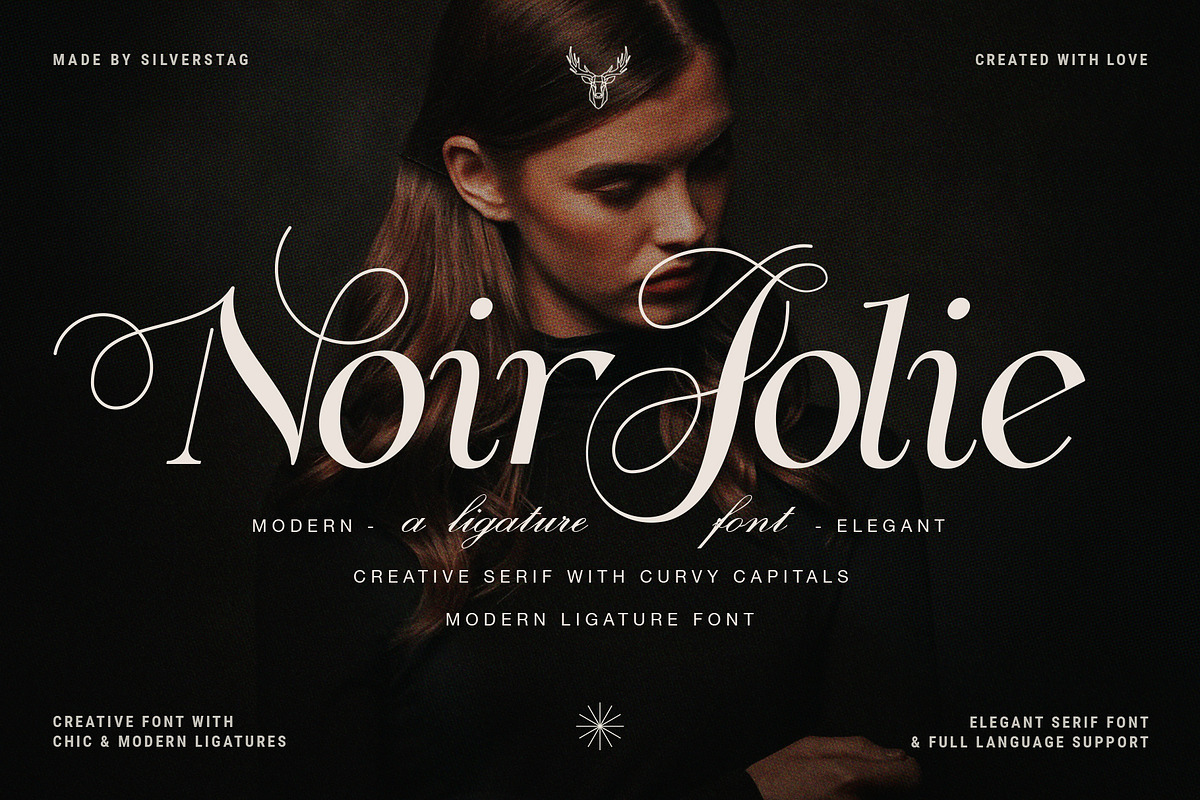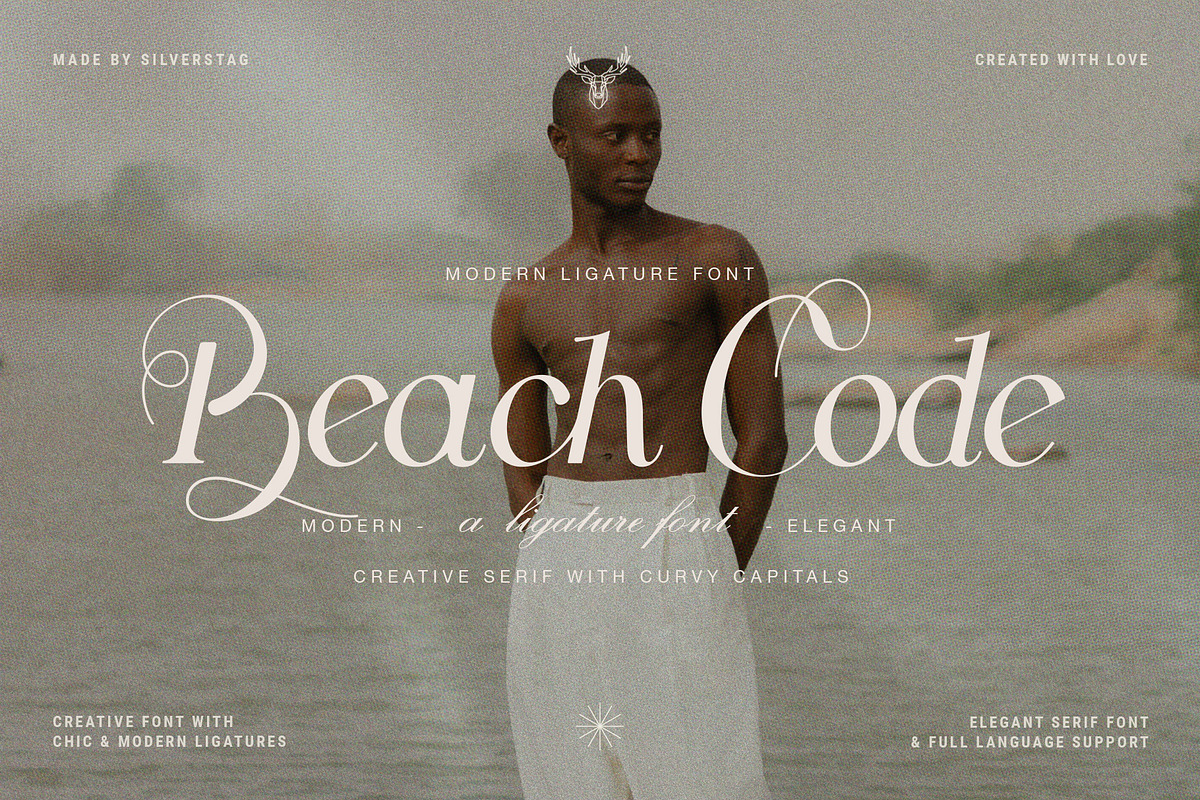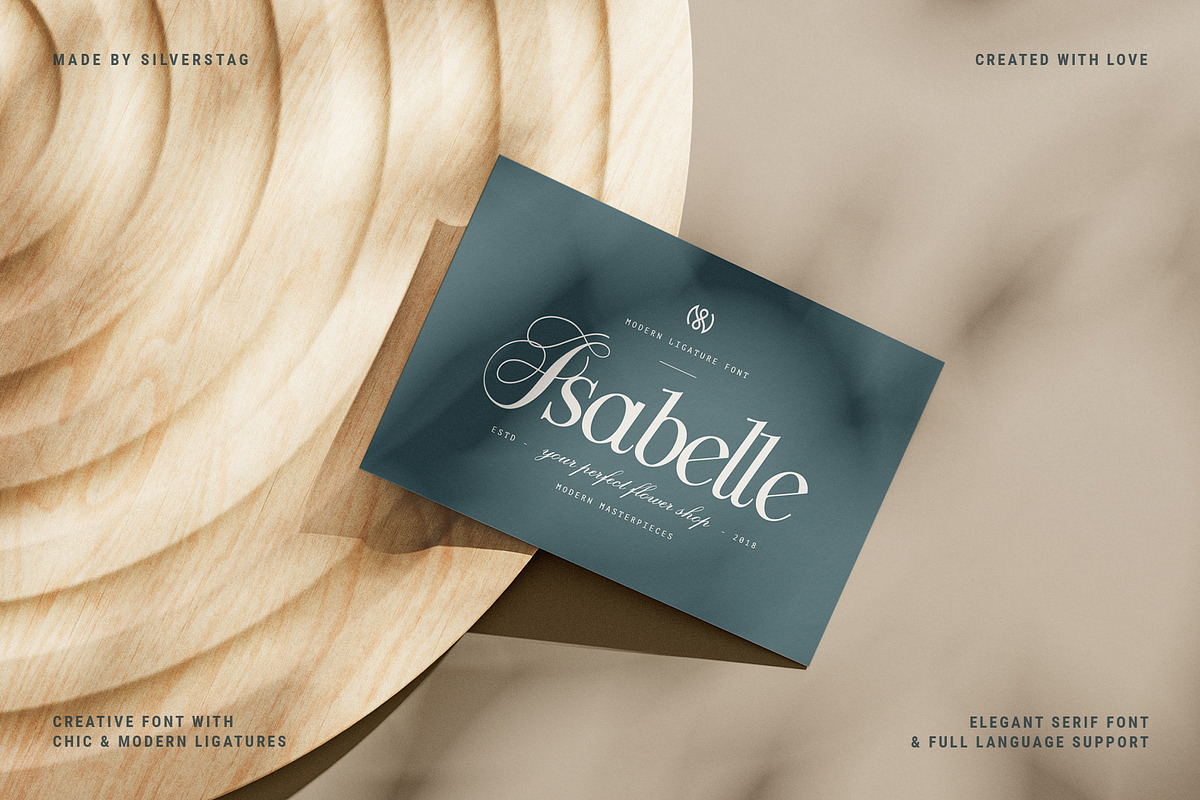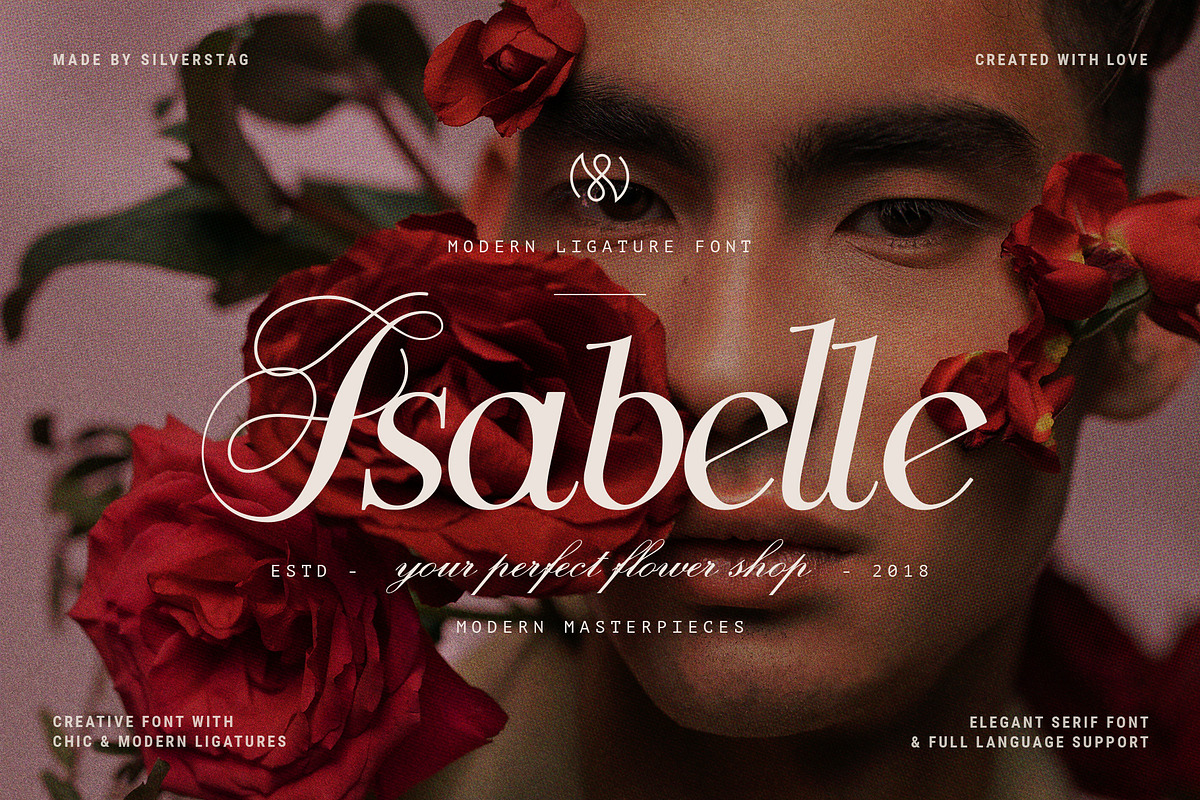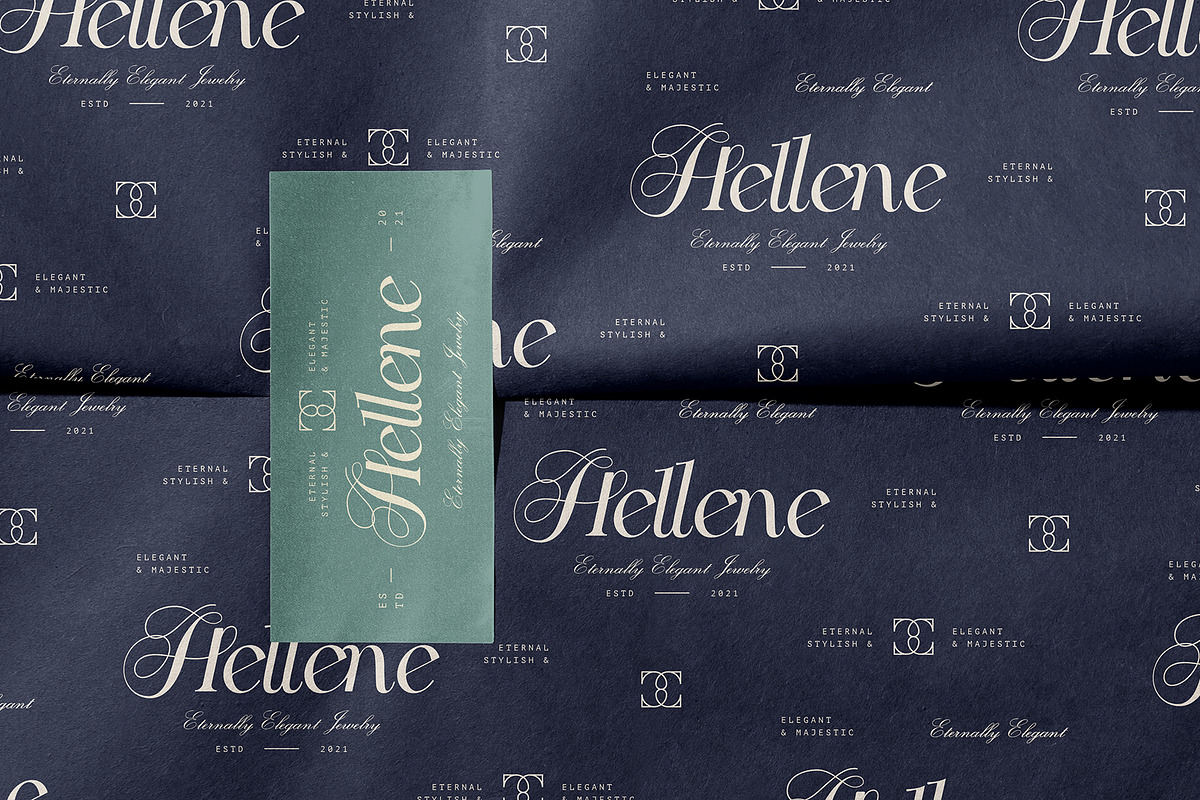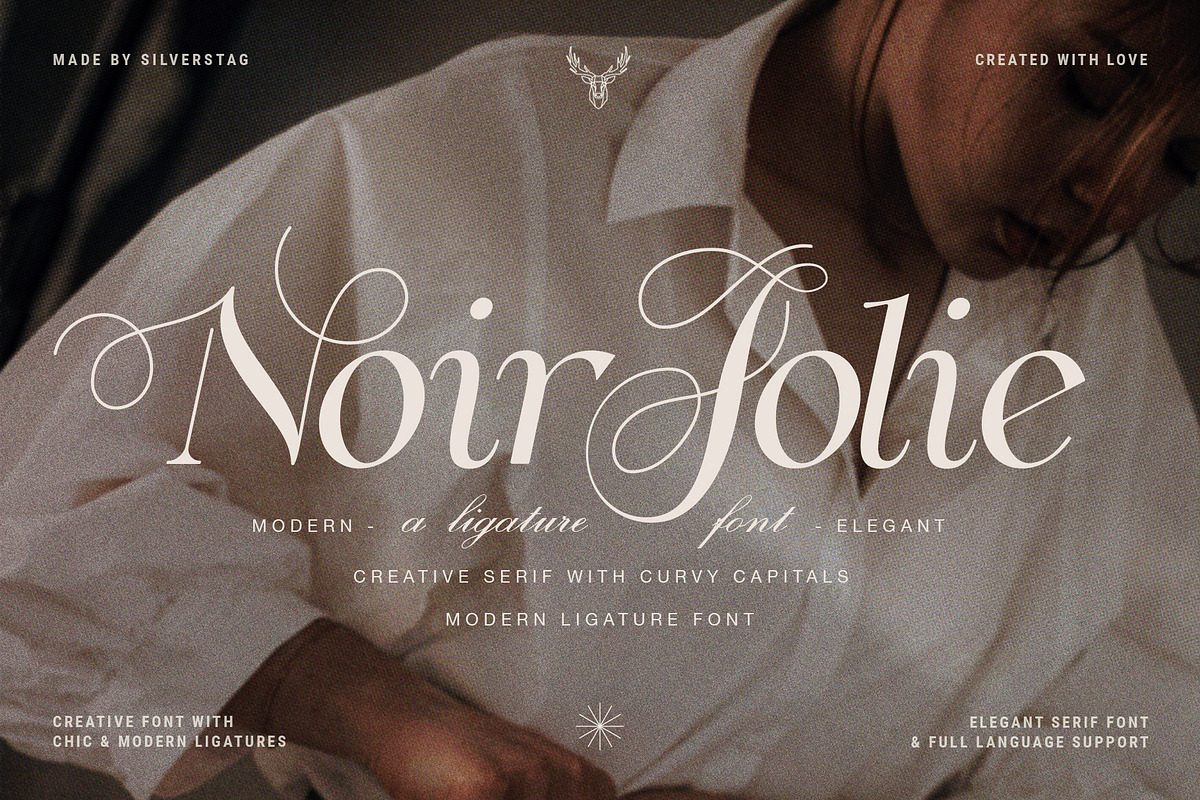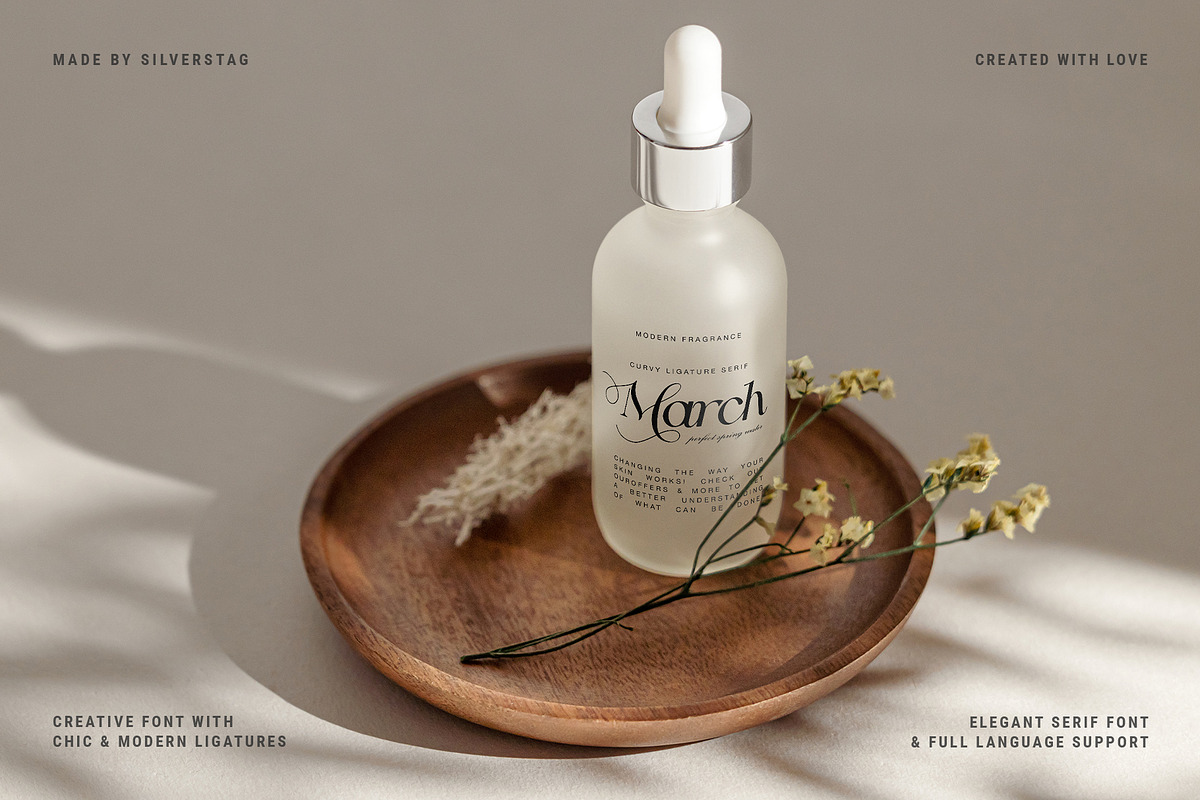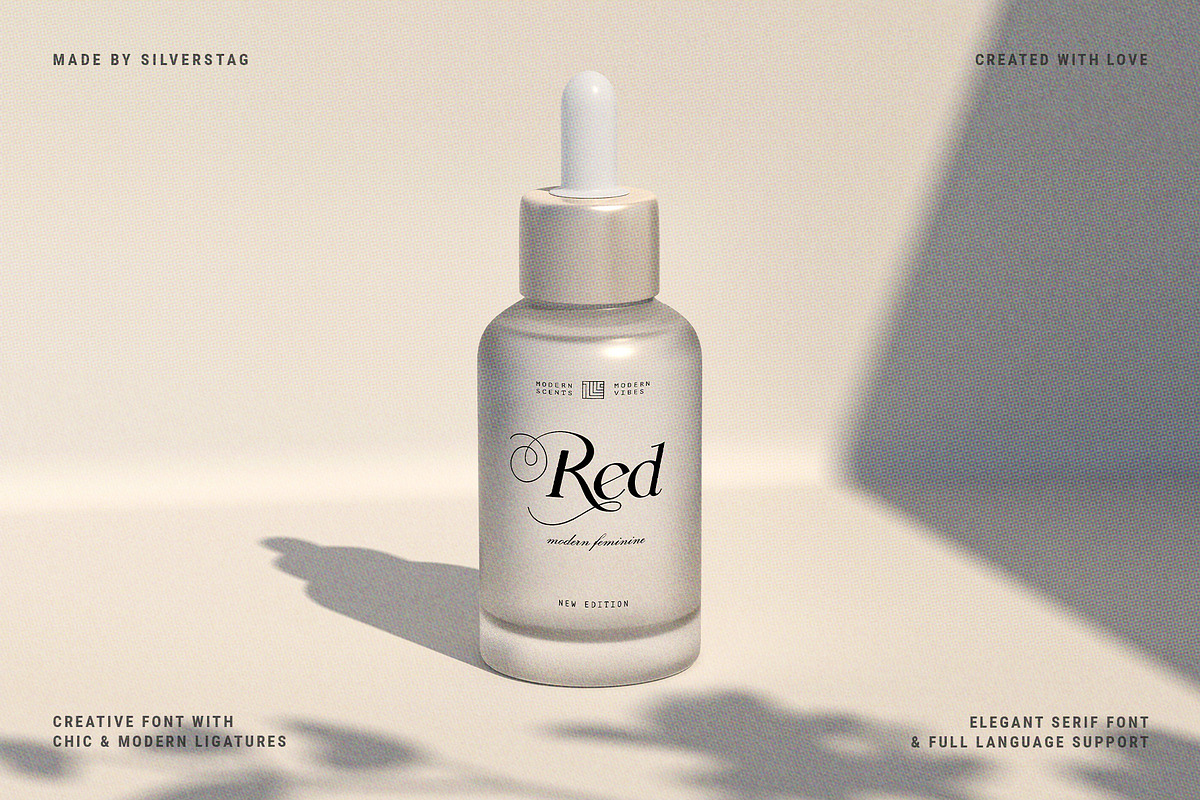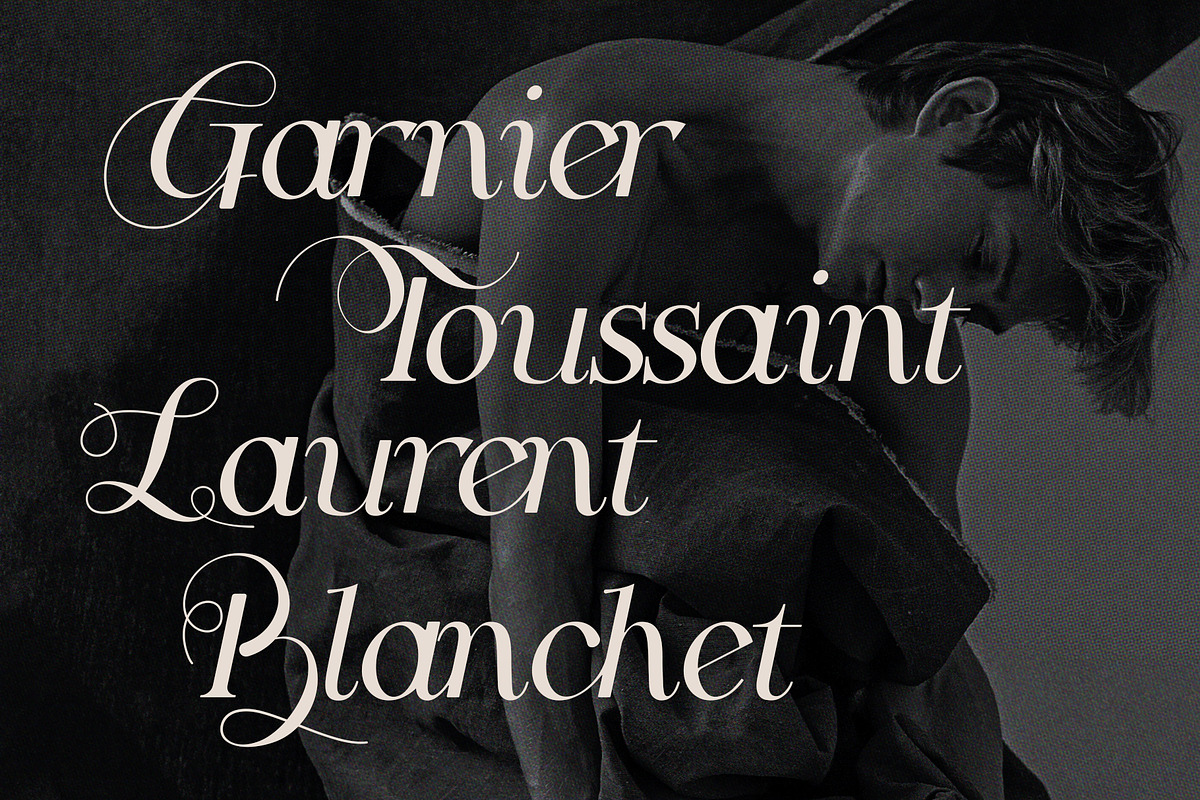
Noir Jolie - Modern Ligature Serif
After a couple of weeks of teasing, sneak previews & insta shots, my new typeface is finally here. Noir Jolie is a modern ligature serif font that comes with curvy & straight combo of uppercase letters and chic lowercase alphabet that together look just perfect. Noir Jolie is also my last font for 2022 so I really hope you guys like it.
The font also includes full language support, punctuation, numerals and detailed instructions how to use alternates & ligatures in most of the apps on your computer, as well as in Canva.
Noir Jolie - Modern Ligature Serif Includes:
- 25+ Ligatures
- Language Support